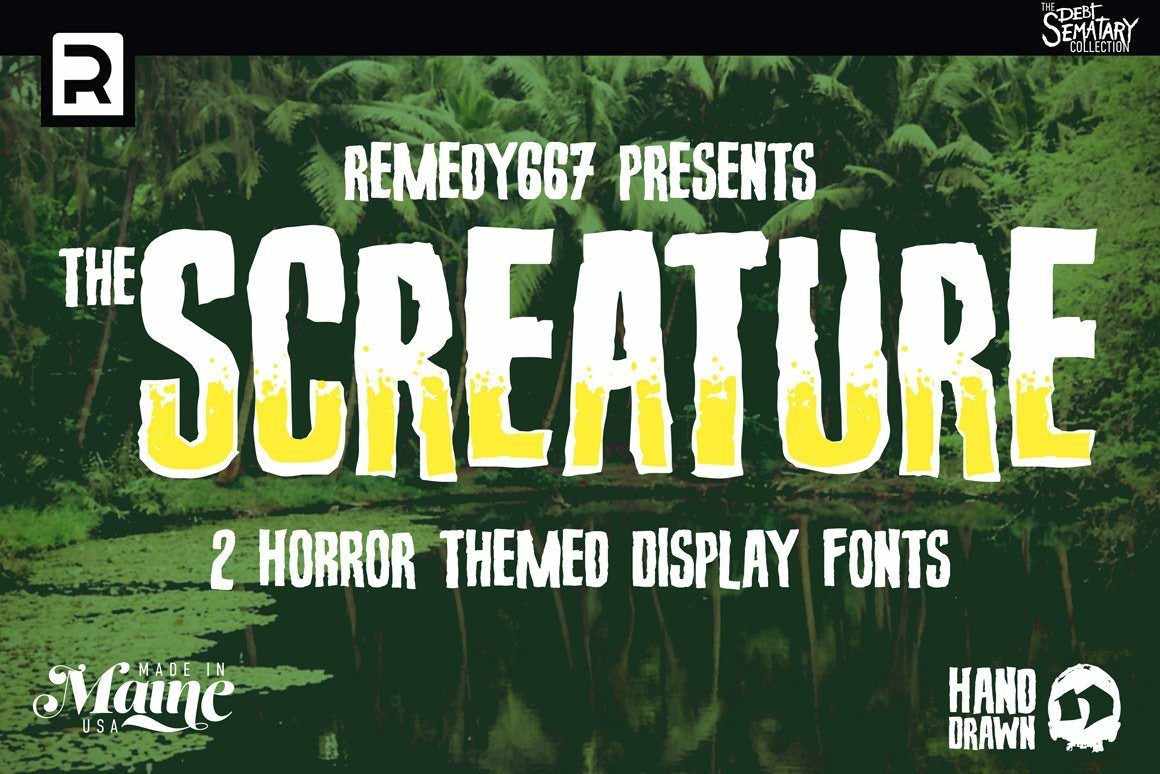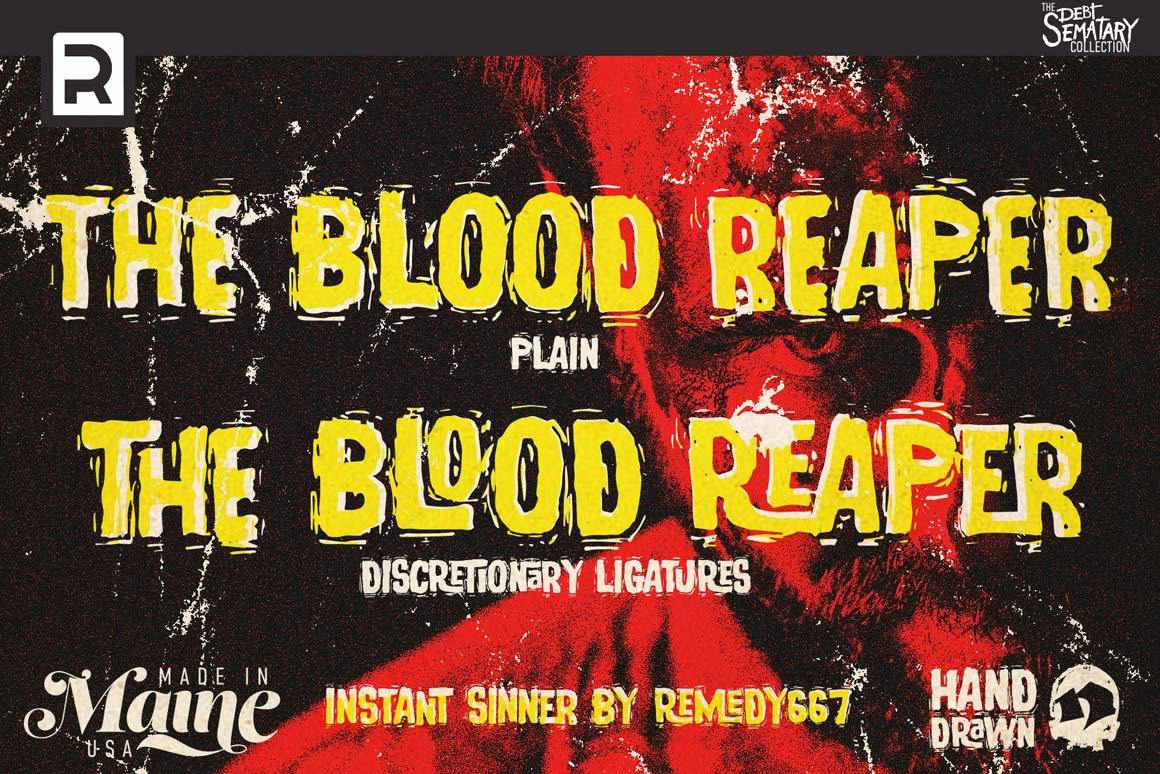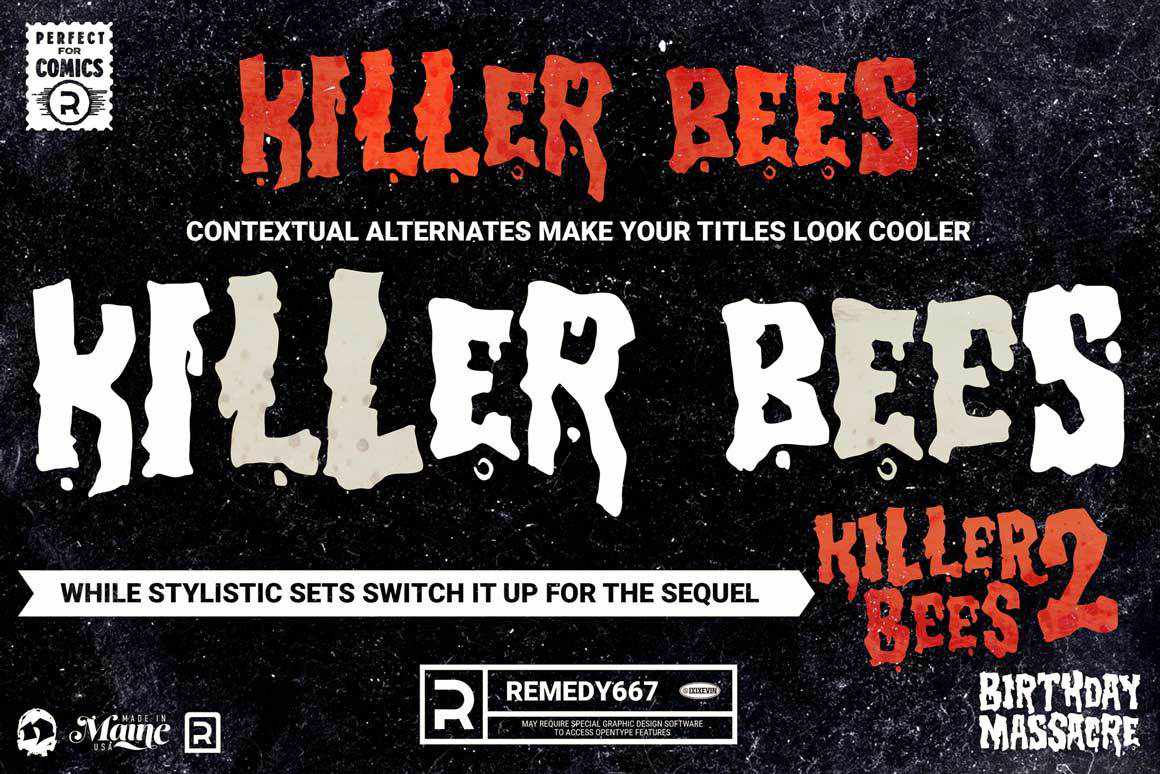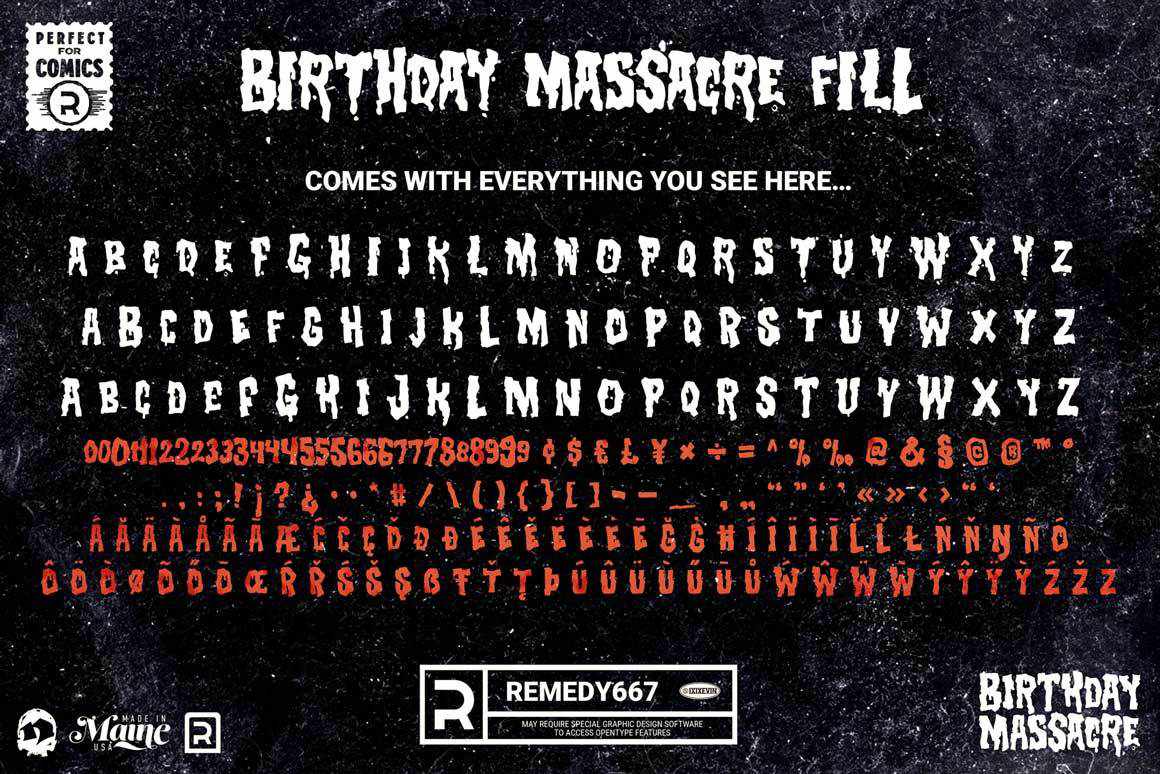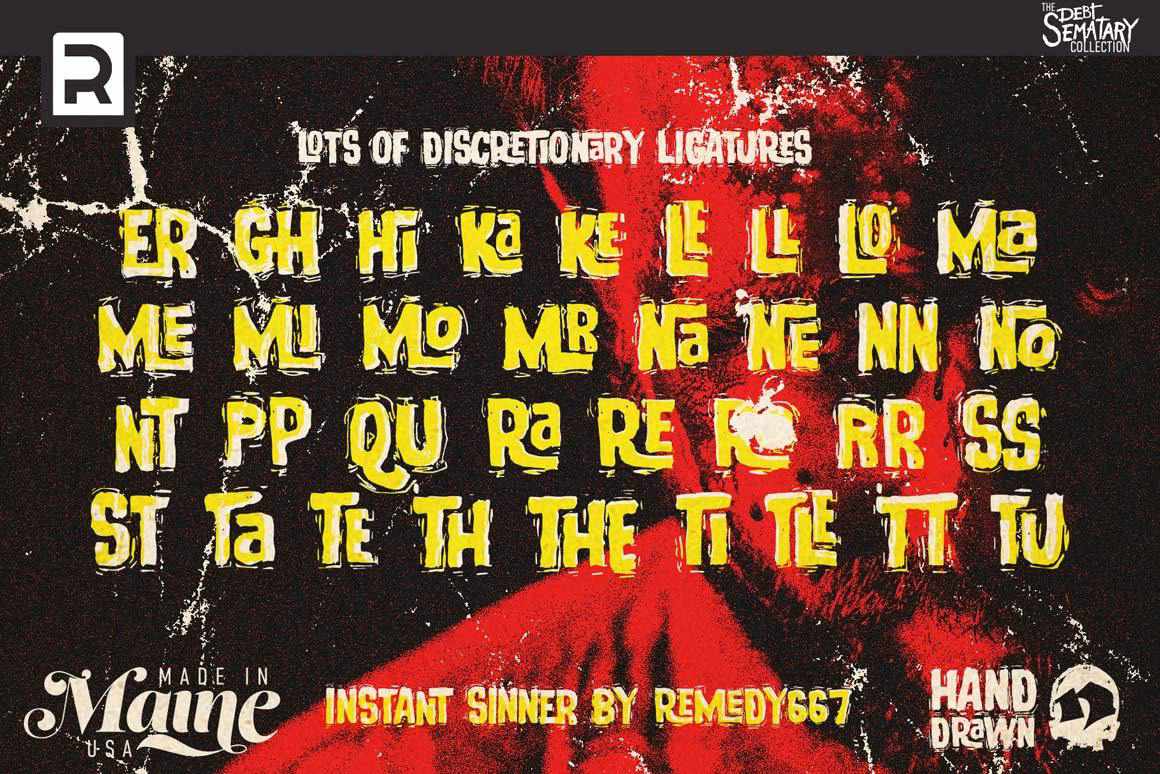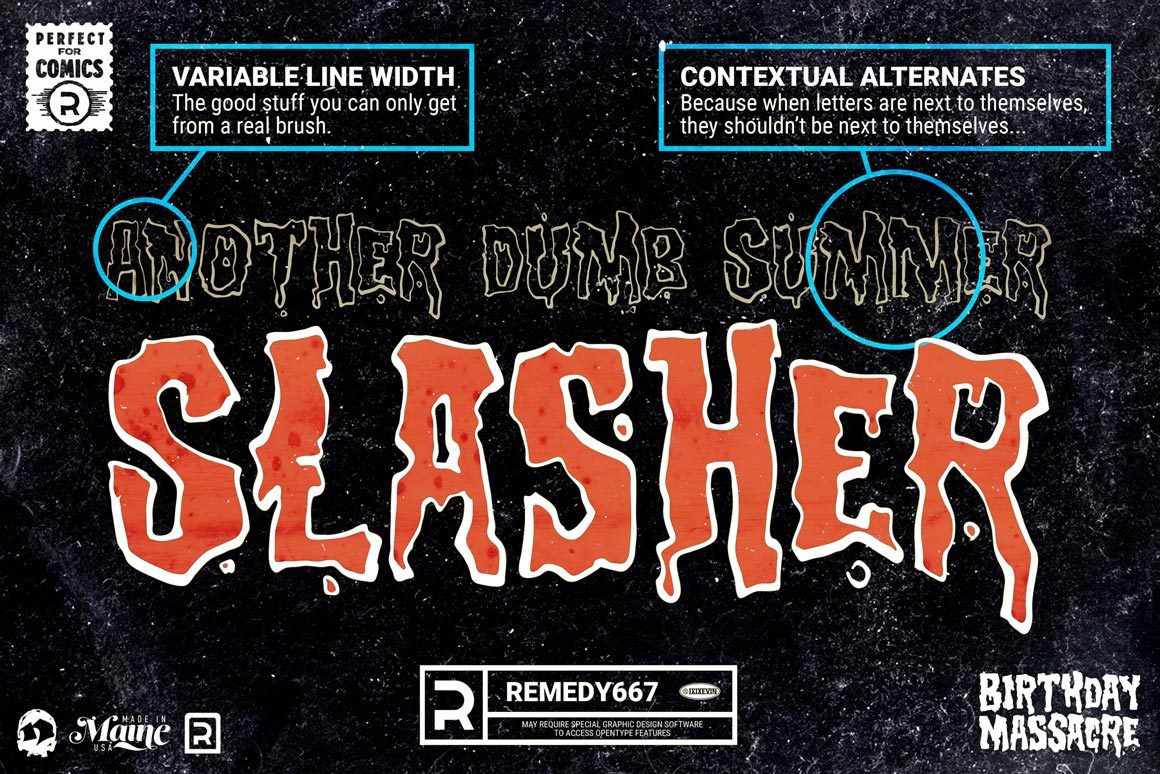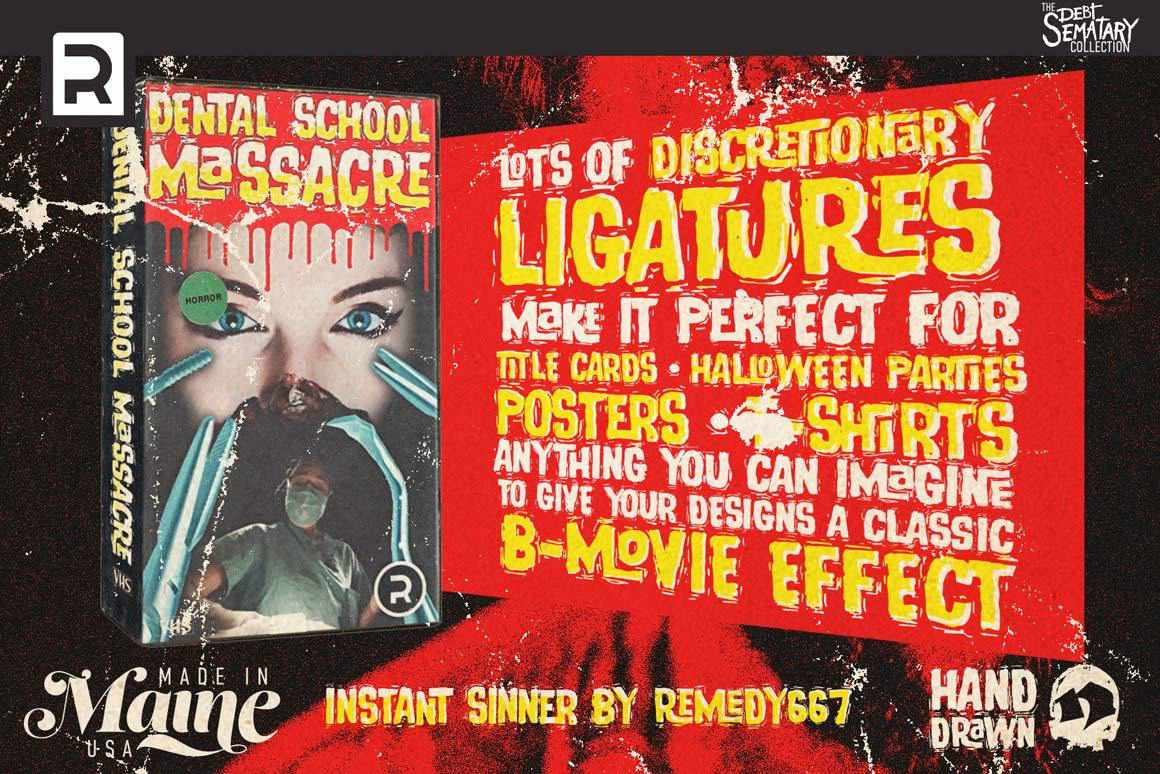
The Creature Font Bundle
Learn More7 Horror Film Inspired Typefaces That Kill (Not Literally)
The horror film genre has more in common with indie record labels and zine culture than typical movie posters. Each poster, VHS box, and promo piece is a collage of tacky pop culture.
The Creature Font Bundle is a collection of seven typefaces (65 fonts in the file total) inspired by classic movie posters.
Foundry: Remedy667
Here's what we're serving up:
- 7 horror movie fonts inspired by 20th century cinema.
- A variety of styles including traditional versions, half fills, outlines, and more.
- Inspired by 1930s black and white classics, 1950s monster movies, and 1970s B-movie slashers.